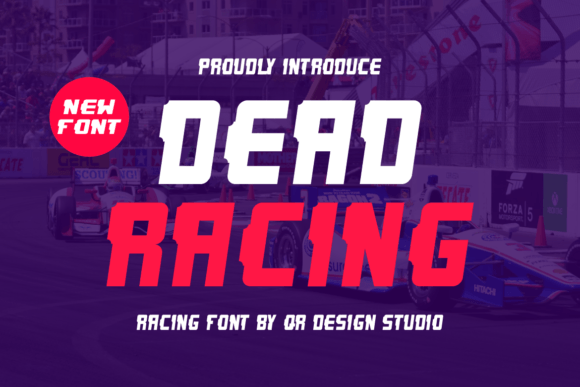
Introduction to Dead Racing Font
Dead Racing is a fun and friendly display font.
Whether you are using it for cartoon- related designs, children games, quotes, titles, brand names, book covers, posters, or just any creation that requires a touch of joy, this font is a great choice .